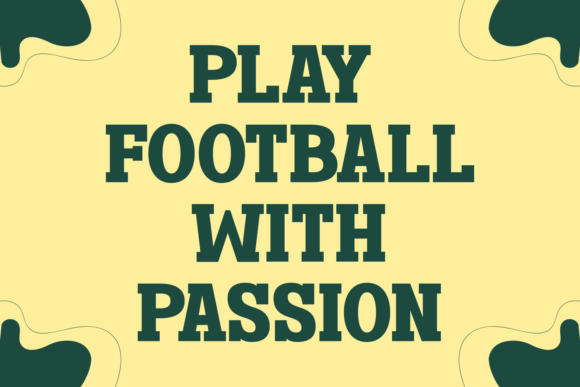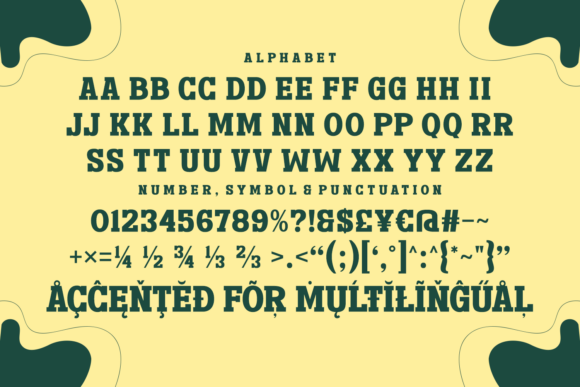
Unveiling the Diamond Capital Sporty Font: Elevate Your Designs with a Touch of Athleticism
In the realm of typography, few fonts capture the essence of athleticism and sporty aesthetics as compellingly as the Diamond Capital Sporty Font. This remarkable typeface is not just a font; it’s an experience, designed to infuse your projects with the energetic vibe of sports and team spirit. Whether you’re working on team branding, athletic-themed projects, or simply looking to add a sporty flair to your designs, the Diamond Capital Sporty Font is an exceptional choice.
The Essence of Athleticism in Typography
The Diamond Capital Sporty Font stands out with its unique blend of sporty and sophisticated design elements. Its outlined variant adds a distinct charm, allowing it to stand elegantly against any background. This versatility makes it an ideal choice for a wide range of applications, from designing sport gear and merchandise to crafting motivational posters and sport-related web designs.
A Nod to Tradition: Jersey and College Styles
One of the most striking features of the Diamond Capital Sporty Font is its Jersey and College styles. These variants are reminiscent of traditional collegiate fonts, evoking a sense of nostalgia and vintage-school spirit. For designers and crafters looking to personalize jerseys, college merchandise, or any project that requires a touch of classic athletic charm, these styles are particularly effective.
Balancing Athleticism with Sophistication
What sets the Diamond Capital Sporty Font apart is its perfect balance between athleticism and sophistication. While it exudes the energetic and competitive vibe of sports, its design remains refined and elegant. This balance ensures that the font can be used in a broad spectrum of projects. Whether you’re aiming to create compelling sport gear branding, designing motivational posters that inspire, or crafting engaging sport-related web content, this font provides a versatile aesthetic that fits seamlessly into any creative vision.
A Statement for Design Enthusiasts
For enthusiasts of typography and design, the Diamond Capital Sporty Font is more than just a style; it’s a statement. It speaks to those who appreciate the art of combining aesthetics with functionality, especially in the context of sports and athletic themes. This font is for anyone looking to ride the wave of sporty design, offering a fresh yet classic approach to typography that stands out in the digital age.
Practical Applications for Designers and Crafters
So, where can you apply the Diamond Capital Sporty Font? The possibilities are vast:
- Team Branding: Use it to create logos, uniforms, and promotional materials that capture the team’s spirit.
- Athletic-themed Projects: Ideal for brochures, posters, and digital content that requires a dynamic, sporty look.
- Jerseys and Merchandise: The Jersey and College styles are perfect for personalizing sports jerseys, college merchandise, and other apparel.
- Sport Gear Branding: Elevate your brand with a font that speaks directly to sports enthusiasts.
- Motivational Posters: Add a compelling, energetic touch to your motivational and inspirational designs.
- Sport-related Web Design: Enhance user experience with a sporty yet sophisticated typography.
| Font Name | Diamond Capital Font |
| Author | Ade (7NTypes) |
The Diamond Capital Sporty Font is a game-changer for designers and crafters looking to infuse their projects with a sporty aesthetic. Its unique blend of athleticism and sophistication, combined with its versatility and nostalgic charm, makes it an invaluable asset in the world of design. Whether you’re a professional designer or a crafting enthusiast, this font offers a fresh perspective on sporty typography, empowering you to create compelling, memorable designs that stand out.
Embrace the Diamond Capital Sporty Font and let its dynamic, sporty vibe transform your designs into statements of style and athleticism. Dive into the world of sporty typography and discover how this font can elevate your creative projects to new heights.